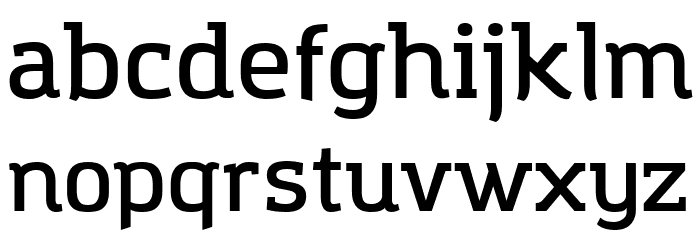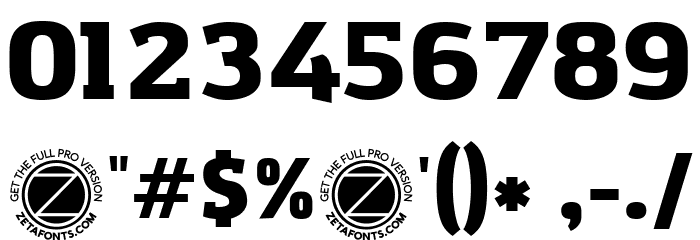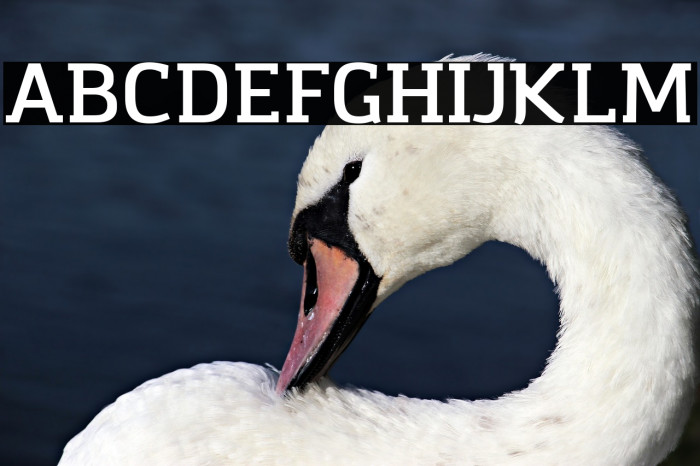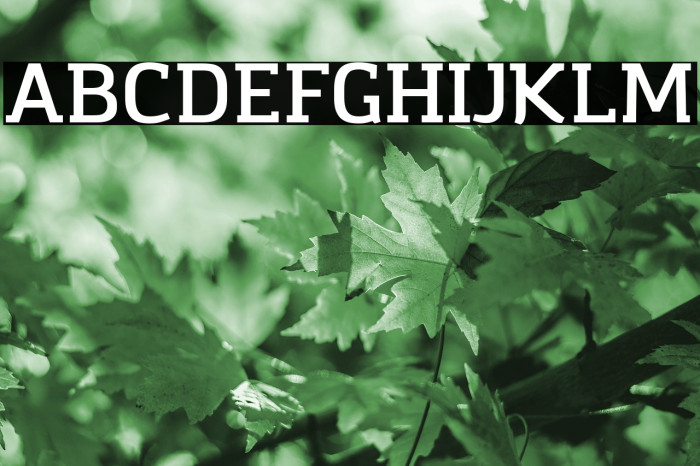
Amazing Infographic@ Font
This font features a modern and clean design with a strong presence. The uppercase letters are bold and slightly condensed, giving a robust and authoritative feel. The lowercase letters maintain a consistent style with a slight curvature that adds a touch of softness to the overall appearance. The numerals are well-proportioned and align perfectly with the uppercase letters, ensuring readability and balance. Special characters are distinct and well-crafted, enhancing the font's versatility. This font is suitable for a wide range of applications, from digital to print media.
A modern, bold font with a clean and authoritative design.
- Proposed Projects: Ideal for branding, headlines, posters, and digital media projects.
- Use Case: Headlines, Logos, Branding